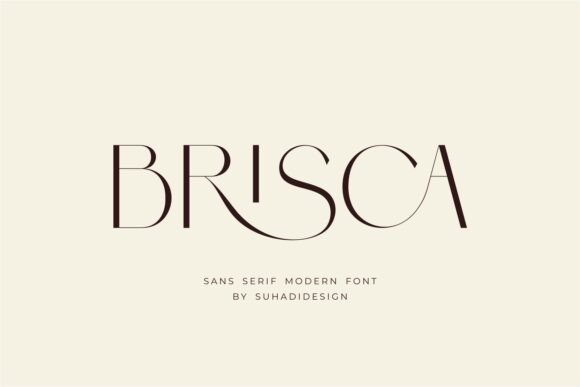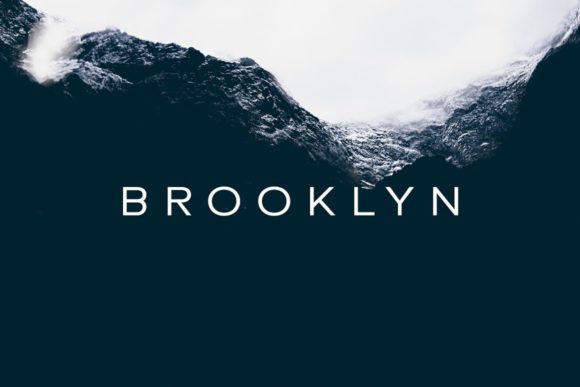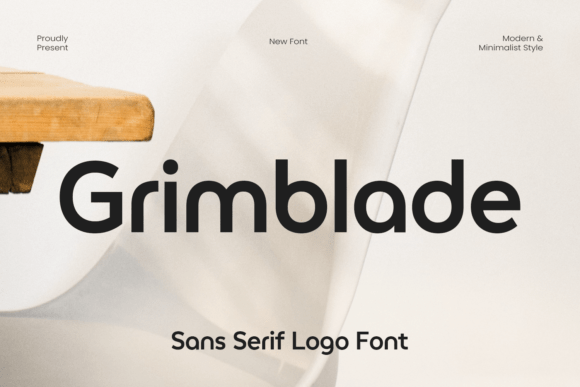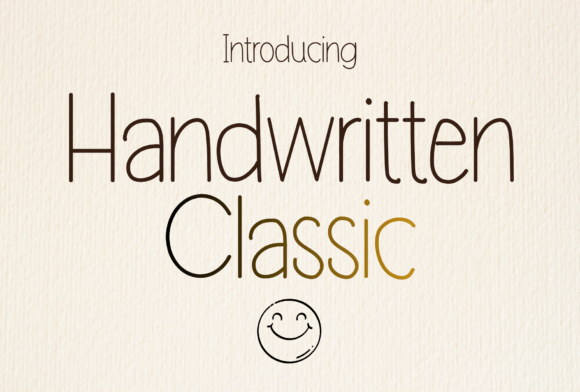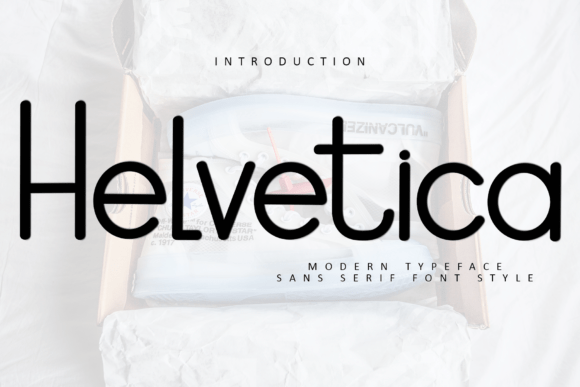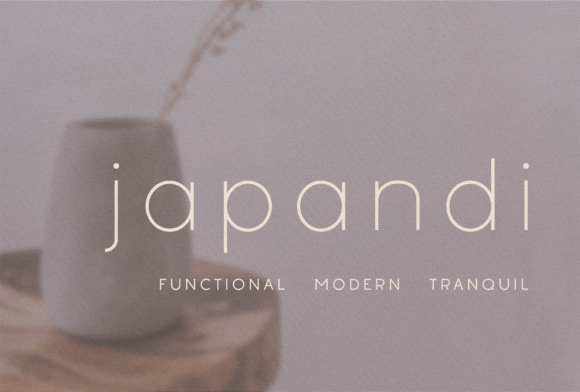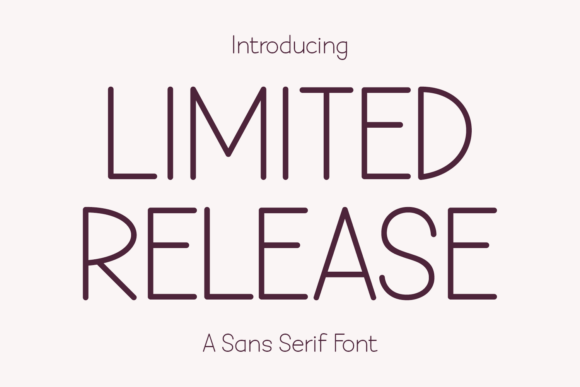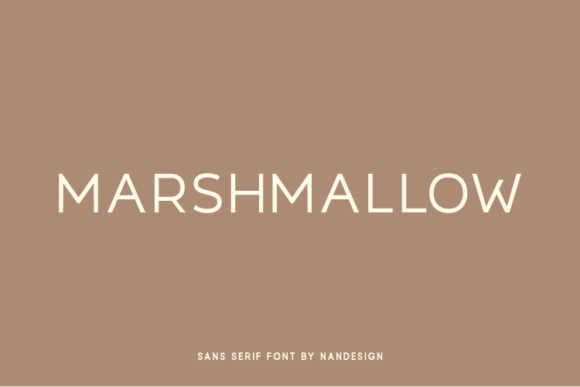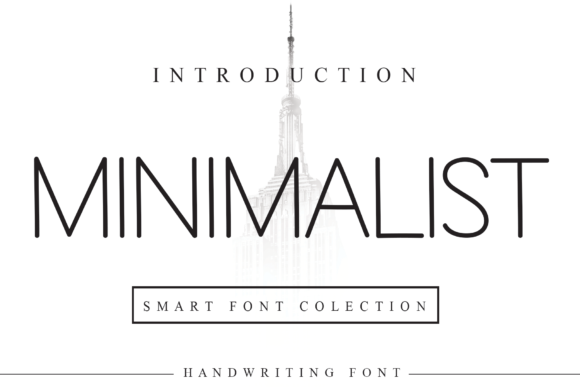
15 Interesting sans serif fonts that actually have personality
Let’s be real for a second: as designers, we’ve all had that moment where we’re scrolling through fonts, see Arial for the millionth time, and just sigh. Don’t get me wrong, the classics have their place, but lately I’ve been on a mission to find sans serifs that actually have a pulse. You know, the kind of Interesting fonts that make you stop scrolling and think “okay, THIS is cool.”
I’m talking about typefaces with personality. The ones that feel fresh without trying too hard. Whether it’s a slightly wonky letterform that gives off handmade vibes or a super clean geometric shape with one unexpected cut, these Creative Fonts are breathing new life into my projects. They work hard, they look good, and they actually make the design process fun again.
So if you’re tired of the same safe choices, stick around – I’ve rounded up some seriously good sans serifs that deserve a spot in your library.
Minimalist Font
Okay, so first up on my list is one I keep coming back to: Minimalist. Yeah, the name says it all, but don’t let that fool you into thinking it’s boring. This sans serif is clean, sharp, and just works with pretty much everything.
I recently used it for a brand refresh, and honestly? It made the whole project click. There’s something about those neat letterforms that gives designs this quiet confidence — no unnecessary flourishes, just pure readability with a modern edge. It’s one of those Interesting fonts that somehow fits both a edgy tech startup and a cozy coffee shop menu without breaking a sweat.
If you’re looking for Creative Fonts that actually do the heavy lifting for you, this is it. Ready to try it yourself? Grab your download of Minimalist here and see what it does for your next project!
Brisca Font
Next up is Brisca, and honestly? This one’s been living in my head rent-free. You know that feeling when you find a font that just gets modern design? That’s Brisca.
What sold me immediately was the ligature feature – it adds this fluid, almost handwritten touch to otherwise clean sans serif letters. It’s elegant without being stuffy, classy without feeling outdated. Perfect for those projects that need to whisper “luxury” instead of shouting it. Beauty brands, editorial layouts, even business cards -Brisca elevates everything it touches.
I threw it on a mood board for a cosmetics concept recently, and my client literally said “that’s the one” before I finished presenting. It’s just one of those Creative Fonts that makes your work look better instantly.
Mango Dream Font
Alright, let’s talk about Mango Dream. If you’re anything like me, you’re always hunting for those sans serifs that somehow feel both professional and friendly at the same time. This one nails it. Those rounded, minimal shapes? Chef’s kiss. It’s got this softness that makes branding feel approachable, but the clean lines keep it seriously polished. I’ve been using it for website headers lately, and it just works – modern, legible, and surprisingly warm for a sans serif.
Oh, and the multilingual support? Huge plus. When you’re designing for global brands (or hoping to), having a font that travels well is non-negotiable. Mango Dream’s got your back there. Honestly, it’s one of those Interesting fonts that quietly becomes your go-to for everything. Web, print, you name it.
Paper Notes Font
Okay, this next one is for all my crafty, detail-obsessed designers out there. Paper Notes is genuinely special.
It’s a thin, minimalist sans serif that somehow captures that raw, authentic feel of natural handwriting – without looking messy or unfinished. You know how hard that balance is to strike? Paper Notes just gets it right. I’ve been using it for quote layouts and label designs lately, and it adds this quiet, thoughtful layer that makes ordinary projects feel handcrafted.
And honestly? It slaps on everything. Journals, mugs, tote bags, stickers – you name it. If you’re into Cricut projects or KDP interiors, this font is basically a cheat code for making your stuff look intentional and artsy without trying too hard. It’s easily one of the most charming Creative Fonts I’ve picked up this year.
Marshmallow Font
Last but definitely not least, let’s talk about Marshmallow. Yes, the name is adorable – but this font actually has some serious range. It’s one of those sans serifs that just works for anything celebratory or eye-catching. I’m talking wedding invitations, save the dates, gorgeous headers that actually stop the scroll. There’s this effortless charm to it that makes everything feel special without being overly fancy or hard to read.
What I love? Sometimes you just need a solid uppercase set with clean numbers and symbols that won’t let you down. Marshmallow delivers exactly that. It’s become my quick go-to whenever a client says “we want it to feel beautiful but still modern.” And honestly? It always delivers. If you’re building up your library of Interesting fonts that actually earn their keep, this one’s a no-brainer.
See why Marshmallow is everyone’s new favorite – download it right here!
Brooklyn Font
Alright, let’s give it up for Brooklyn. Sometimes you don’t need a font that screams – you need one that shows up, looks sharp, and lets your actual design do the talking. That’s Brooklyn in a nutshell.
It’s minimal, it’s neat, and honestly? It’s that friend who gets along with everyone. I’ve thrown this font at branding projects, social media graphics, even packaging mockups – and it just… fits. Every single time. There’s something about those clean lines that makes whatever you’re working on feel instantly more put-together without looking like you tried too hard.
If you’re building a collection of Creative Fonts that actually earn their keep, Brooklyn belongs in your folder. It’s one of those Interesting fonts that quietly becomes your first grab for almost everything.
Ready to see what Brooklyn can do for your next project? Download it right here!
Cloud Font
Cloud might be my personal favorite from this entire list. And I don’t say that lightly. There’s something about this sans serif that just hits different. It’s elegant without being precious, versatile without feeling generic. I threw it on a magazine header recently and literally sat back in my chair like “yep, that’s the one.” It’s got this airy, effortless quality that makes logos and branding feel instantly more sophisticated.
What I really appreciate? It works just as hard on product packaging as it does on a simple text overlay. Homeware designs, editorial layouts, even just styling out a background image – Cloud elevates everything it touches without stealing the show. That’s a hard balance to find, honestly. If you’re hunting for Creative Fonts that bring genuine personality to the table, Cloud deserves a spot in your library.
See why Cloud is about to become your new go-to – download it right here!
Minimalist Lemonade Font
First off, can we talk about that name? It just feels fresh, right? And honestly? The font delivers exactly that energy. It’s a sans serif that walks this perfect line between clean and friendly – like it means business but still remembers to smile.
I’ve been using it for social media graphics lately, and it’s one of those fonts that just makes the design process easier. Headers pop, logos feel modern but not try-hard, and everything you touch with it somehow looks more intentional. It’s quickly becoming one of those Interesting fonts I grab when I just need something to work – no fuss, no tweaking for hours. You know how some fonts are just… easy to be around? That’s Minimalist Lemonade.
See why this one’s becoming a fan favorite – download it right here!
Japandi Font
If you’re into that whole minimalist aesthetic – clean spaces, natural light, everything feeling intentional – this font is basically that vibe in typeform. It’s lightweight, crisp, and honestly feels like a breath of fresh air every time I open it.
The designer specifically created this for interior design projects, and you can totally feel it. I recently used it for a home decor brand’s social media, and it just fit – like the font version of a perfectly styled shelf. But don’t box it in! I’ve seen it work magic on wedding invitations, branding mood boards, even product packaging that wants to feel calm and curated.
It’s one of those Creative Fonts that doesn’t shout for attention but somehow makes everything around it look better. If you’re into that Japandi aesthetic (or just need something that feels peaceful and polished), this one’s for you.
Bring that calm, curated energy to your next project – download Japandi right here!
Helvetica Font
I have to pause here for a second because… wait, this isn’t the Helvetica. You know, the legendary one every designer has strong opinions about? Turns out there’s another Helvetica font floating around – and honestly? It’s pretty great. This one has a softer, more approachable feel with these unique little strokes that give it actual character. It’s like the friendly cousin of that classic we all know.
What I love about this version is how versatile it actually is. Crafts, design projects, digital stuff – it plays nice with everything. And full compatibility with basically any platform? Yes please. No more font drama when sending files to clients. It’s one of those Interesting fonts that sneaks up on you. You start using it for one small project, and suddenly it’s everywhere in your workflow.
See what this softer side of Helvetica can do for your work – download it right here!
Oceangraphy Font
This font is genuinely special. Those decorative elements? The whimsical little swirls? It’s giving main character energy for anything that needs a touch of magic. Greeting cards, gift tags, holiday projects – obviously. But honestly? I’ve been eyeing it for save the dates and even some playful branding concepts. There’s something so nostalgic and cheerful about it without feeling try-hard.
And the best part? It’s PUA encoded, so you can actually access all those gorgeous glyphs and ligatures without jumping through hoops. As someone who’s wasted way too much time fighting with font files, trust me – this matters.
Even among all the Interesting fonts we’ve covered, Oceangraphy stands out as something truly unique.
Grimblade Font
This one’s for the logo nerds. You know who you are. Grimblade is chef’s kiss. It’s one of those sans serifs that just screams confidence without actually screaming. Clean geometry, sharp edges that transition into smooth curves – it’s minimalist but somehow still has serious presence. I threw it on a tech brand concept recently and honestly? Sent chills down my spine a little.
What gets me excited is the precision here. You can tell someone actually cared about kerning and spacing instead of just letting the computer figure it out. Every character holds its own weight. Headers, titles, luxury packaging – this is the font you bring out when you need to look polished and mean it. It’s not for writing novels, sure. But for logos and display work? Pure gold. One of the most confident Interesting fonts I’ve added to my library in a minute.
Give your branding that Grimblade edge – download it right here!
Organic Hand Font
I have a soft spot for fonts that feel like they were actually made by human hands – and Organic Hand delivers exactly that. It’s this perfect little mashup of clean sans serif structure and handmade authenticity. You know how sometimes hand-drawn fonts look great but become a nightmare to actually work with? Not this one. It’s got that boho, organic feel without sacrificing legibility or professionalism.
I’ve been using it for branding projects that want to feel approachable but still polished. Social media graphics, invitations, mood boards – it adds this warmth that’s hard to find in most sans serifs. Like the font version of a perfectly imperfect ceramic mug. If you’re building a collection of Creative Fonts that actually bring personality to the table, this one deserves a spot. It’s easily one of the most charming Interesting fonts I’ve picked up lately.
Bring that handmade warmth to your next project – download Organic Hand right here!
Handwritten Classic Font
This one feels like a warm hug in font form. Handwritten Classic is exactly what it sounds like – that effortless, neat penmanship you wish your actual handwriting looked like. Tall, condensed letters with slim strokes that somehow feel both cozy and intentional. It’s like getting a handwritten note from a friend, but make it design-ready.
What I love about this one? It brings actual humanity to digital projects without looking messy. Digital journaling, blog headers, greeting cards – it adds that personal touch that’s so hard to fake. And the pairing potential? Chef’s kiss. Throw it next to a chunky bold serif and watch the magic happen.
It’s perfect for nursery themes, recipe books, anything that needs to feel grounded and relatable. In a world of sterile digital type, Handwritten Classic remembers what actual penmanship feels like. Definitely one of the more charming Interesting fonts I’ve come across.
Add that human touch to your next project – download Handwritten Classic right here!
Limited Release Font
I’m a sucker for a font that just works everywhere, and Limited Release is exactly that. It’s minimalist, it’s neat, and honestly? It’s one of those sans serifs that quietly becomes your best friend. Journals, stickers, quote layouts, logos – I’ve thrown this font at pretty much everything lately and it hasn’t let me down once. There’s something about those clean lines that makes whatever you’re designing feel intentional and polished without screaming for attention.
You know how some fonts require hours of tweaking to look right? Limited Release just shows up and does the job. Social media graphics pop, branding looks sharp, and everything you touch somehow looks more professional. It’s quickly climbing my list of go-to Creative Fonts for those “I just need this to work” moments. Definitely one of those Interesting fonts that earns its keep.
Alright, we made it to the end! Honestly, putting this list together reminded me why I love what I do – there’s just something about finding that perfect font that makes a design click.
Whether you’re into clean minimalists, handcrafted originals, or something with a little edge, I hope you discovered a new favorite here. The right typeface? It changes everything.